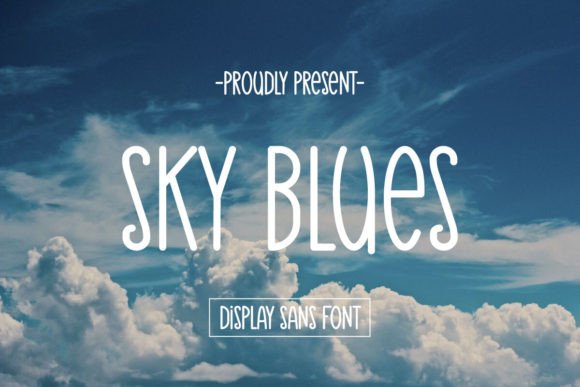
Introducing Sky Blues Font, a charming sans serif typography that exudes joy and playfulness. This captivating font, crafted with precision by Masyafi Studio, offers an array of possibilities, promising to transform your creative visions into captivating realities.
Step into a world of vibrant expression with Sky Blues Font. Its cheerful, approachable style dances across any surface, capturing hearts with its playful curves and energetic strokes. Sky Blues Font breathes life into your words, adding a touch of delight to quotes, t-shirts, decorations, pillows, mugs, posters, and beyond.
With Sky Blues Font, ordinary becomes extraordinary. Its unique sans serif structure brings a sense of modernity and style, effortlessly elevating your designs to new heights. This font is not merely a visual enhancement; it is a gateway to a world of captivating storytelling, inviting your audience to embark on a journey of joy and discovery.
Discover the magic of Sky Blues Font today, and unlock a treasure trove of creative possibilities. Let your imagination soar, let your words take flight, and let Sky Blues Font serenade your audience with its irresistible charm. Embrace the playful spirit of Sky Blues Font and unveil a world of enchanting designs.